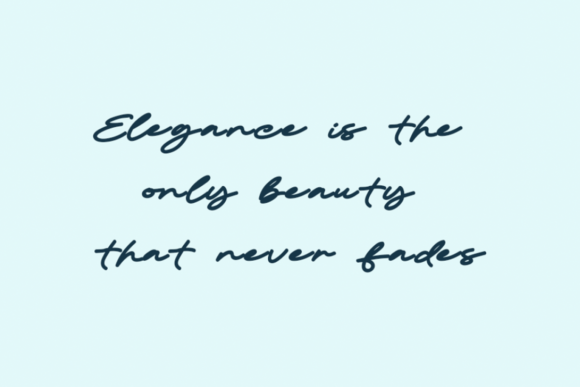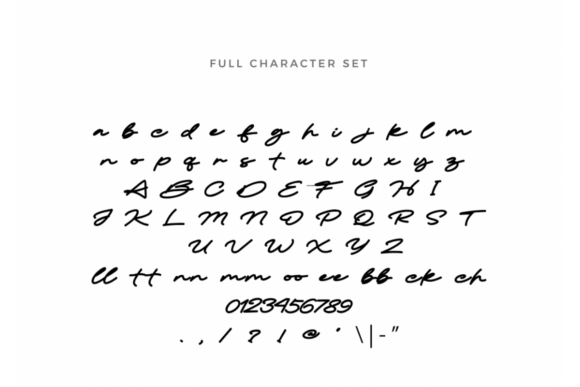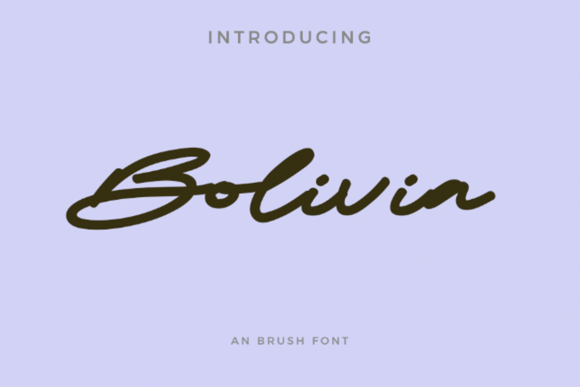
Introducing Bolivia: The Exceptional Artisan-Crafted Script Font
In the realm of typography, few fonts manage to capture the essence of uniqueness and charm as effectively as Bolivia. This exceptional, artisan-crafted script font is designed to bring a touch of sophistication and individuality to your creative pursuits. With its handwritten aesthetic and graceful hand-lettered quality, Bolivia is poised to elevate your design ventures to new heights.
The Art of Handcrafted Typography
Bolivia is more than just a font; it’s an experience. Its handcrafted nature ensures that every letter, every curve, and every stroke is infused with a sense of artistry and authenticity. This meticulous attention to detail results in a font that exudes warmth and elegance, making it perfect for projects that demand a personal touch.
A Blend of Elegance and Warmth
What sets Bolivia apart is its unique blend of elegance and warmth. This delightful script font is designed to evoke emotions and create connections. Whether you’re working on a branding project, a wedding invitation, or a packaging design, Bolivia brings a level of sophistication and charm that’s hard to achieve with standard fonts.
Unleashing Creativity with Bolivia
Bolivia is not just a font; it’s a creative tool. Its distinctive, charming aura invites a sense of authenticity and artistry into your work. Designers and crafters can leverage Bolivia’s unique characteristics to create stunning visual content that stands out in a crowded digital landscape.
Key Features of Bolivia Font
• Handwritten Aesthetic: Bolivia boasts a beautiful, hand-lettered quality that gives your text a personal and authentic feel.
• Elegant and Warm: The font combines elegance with warmth, making it suitable for a wide range of design projects.
• Unique and Charming: Bolivia’s distinctive style ensures that your work stands out with a charming aura that’s both inviting and memorable.
• Artisan-Crafted: Each letter is carefully crafted to bring out the best in your design, ensuring a level of quality that’s hard to find in generic fonts.
Bolivia is a versatile font that caters to the needs of designers and crafters across various platforms. Whether you’re creating:
• Branding Materials: Use Bolivia to give your brand a unique voice and aesthetic.
• Wedding Invitations: Add a touch of elegance and romance to your wedding stationery.
• Packaging Designs: Stand out on store shelves with Bolivia’s distinctive and charming style.
• Digital Content: Enhance your website, blog, or social media graphics with Bolivia’s warm and inviting typography.
Bolivia is more than just a script font; it’s a gateway to creating unique, memorable, and artistic designs. Its blend of elegance, warmth, and charm makes it an indispensable tool for designers and crafters looking to leave a mark. With Bolivia, you’re not just choosing a font; you’re embracing a design philosophy that values individuality and creativity.
So, why settle for ordinary when you can create something extraordinary with Bolivia? Dive into the world of artisan-crafted typography and discover how Bolivia can transform your designs into works of art.